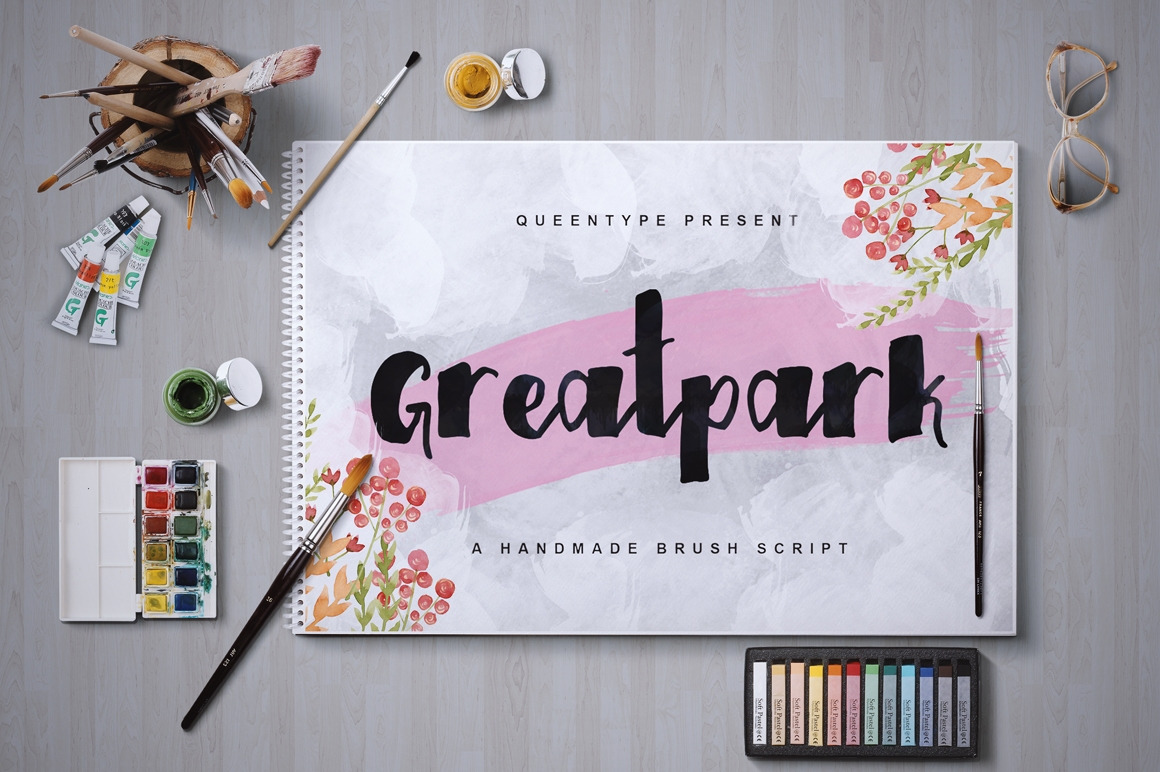
Greatpark Typeface
Introducing Greatpark Typeface
Greatpark Typeface is a beautiful handmade brush script give the natural looks. 241 glyphs and alternate character contain with opentype features. Stylistic alternates, Ornament, Swash and more.You can access all those alternate characters by using OpenType savvy programs such as Adobe Illustrator and Adobe InDesign.
Great for Apparel Brand, any greeting cards, book cover, Painting design style, or any design that needs natural and personal touch. Mix and match the alternate characters to add an attractive message to your design.